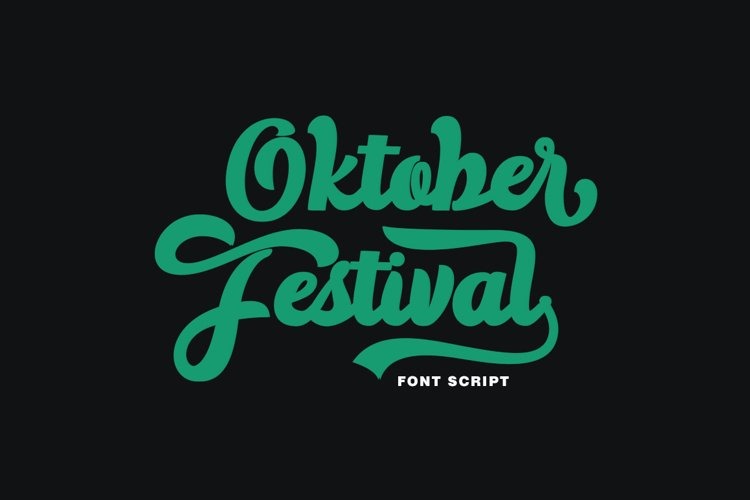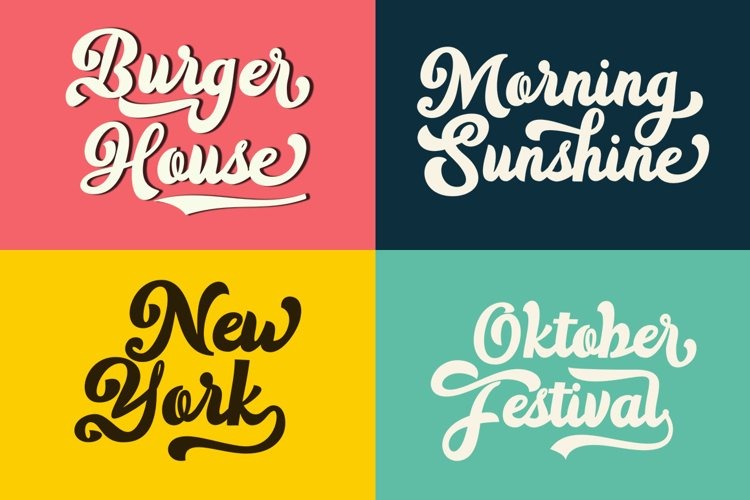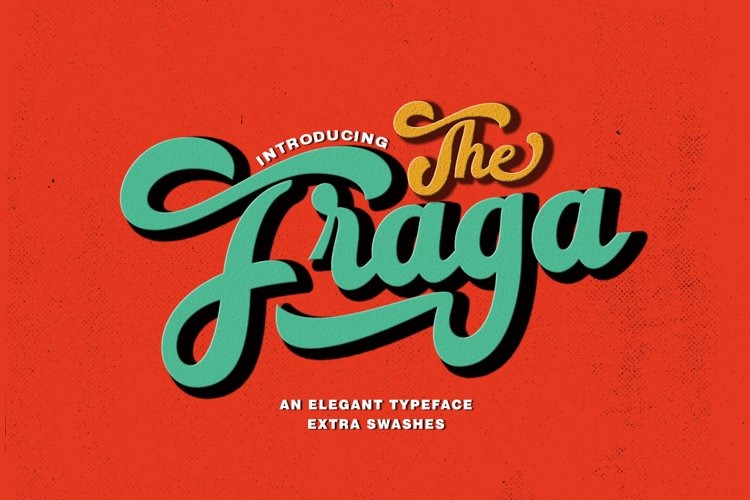
The Fraga Font
The Fraga Script Font
This is a retro script font inspired by the flowy freeform lettering of the 60s and 70s. The Fraga Script have many alternative swash & ligatures character and have opentype features like a stylistic alternatice, stylistic set, ligature and swash so you can mix and match like a you want.
The Fraga Script came with open type features such stylistic alternates, stylistic sets & ligatures good for logotype, poster, badge, book cover, tshirt design,handwritten quotes, product packaging, header, poster, merchandise, social media & greeting cards.